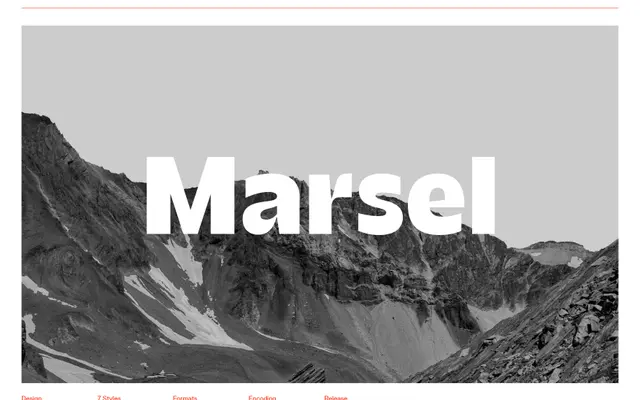
Marsel
Apex Foundry · 2016
A sans-serif family conceived as a meeting between Roger Excoffon and Eric Gill, shifting from near-monoline in lighter weights to high-contrast exuberance in the Black.
Beginning in 2016 as a single Black cut inspired by Excoffon's Antique Olive Nord and Gill's Kayo, Marsel expanded into a seven-weight family where the distribution of thin and thick strokes grows increasingly eccentric as weight increases. The result is a family with a split character: restrained and rational at the lighter end, boldly contrasted and expressive at the heavy end. It ships as a variable font with a thorough OpenType feature set including alternates for a, g, y and Q, four figure styles and extensive Latin language coverage.
Marsel is a sans-serif with variable contrast across weights, shifting from a near-monoline construction in lighter cuts to a high-contrast, personality-driven form in heavier weights, drawing on humanist influences from Excoffon's Antique Olive and Gill's experimental work.